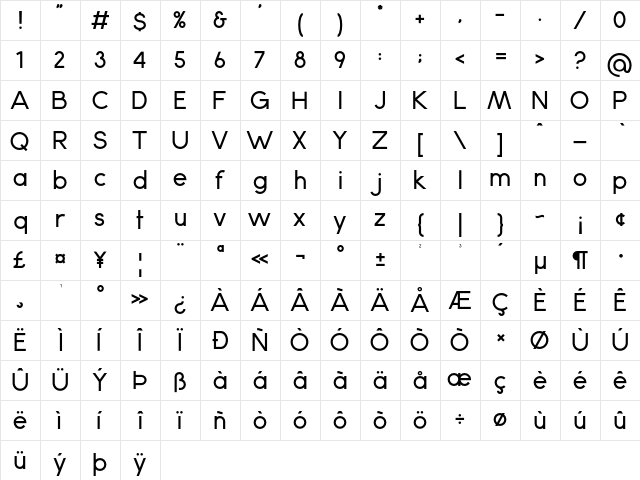
Anke Regular
| Foundry | Noe Araujo |
| Designer | Noe Araujo |
Design Context for Anke Typeface
Anke takes a measured approach to typography — its balanced proportions and neutral character make it a reliable workhorse for both digital and print work.